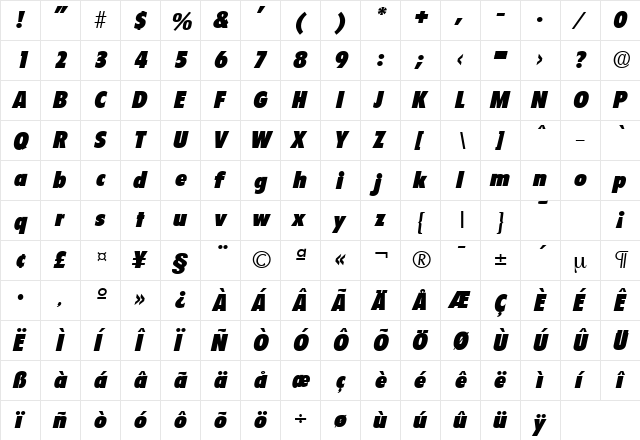
Florida-Serial-Black RegularItalic
Design Context for Florida-Serial-Black Typeface
Florida-Serial-Black takes a measured approach to typography — its balanced proportions and neutral character make it a reliable workhorse for both digital and print work. The dynamic lean of this cut emphasises speed and emphasis in any layout.
Pro Tip: Use Florida-Serial-Black for emphasis, pull quotes, and subheadings where its slanted energy can add rhythm to the layout.